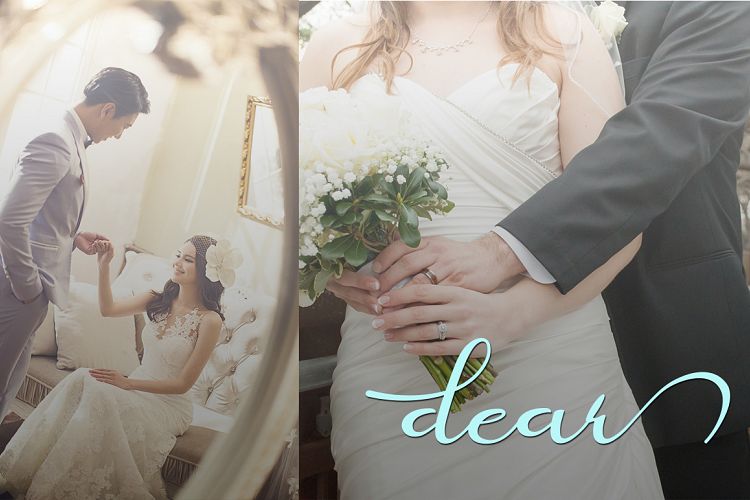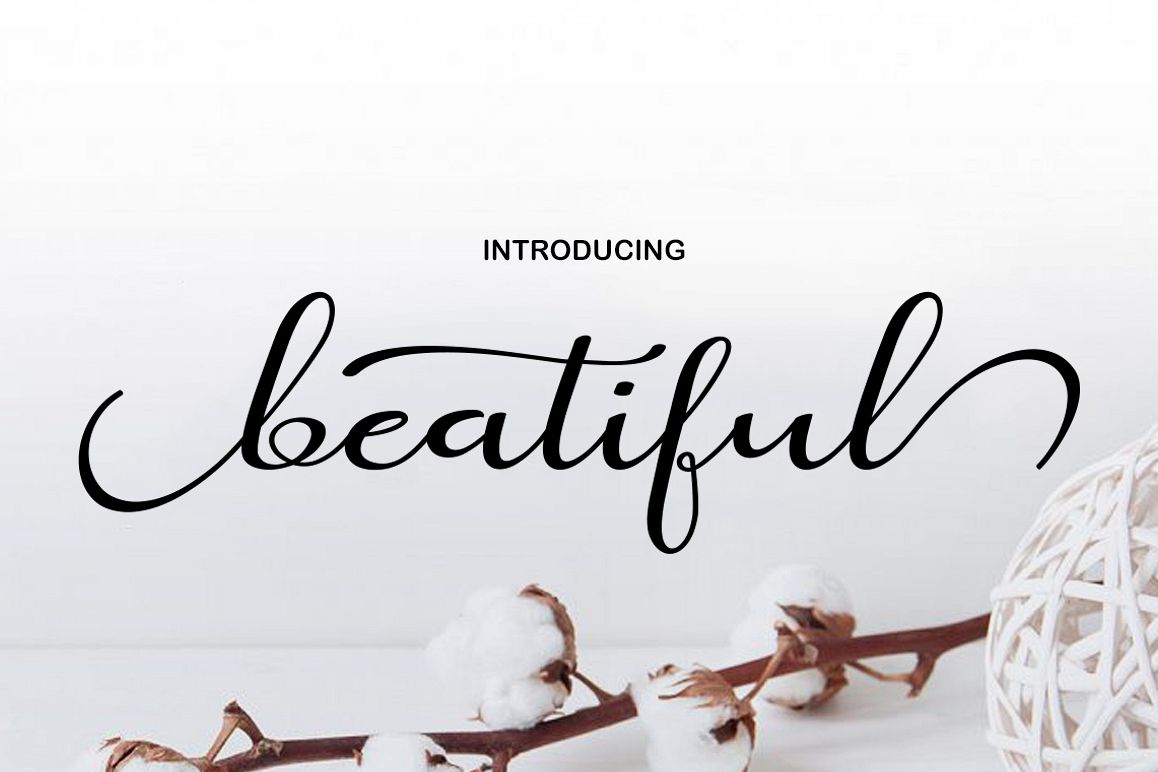
beatifulS cript Font
beatiful Script
beatiful Script New fresh & modern style with handmade calligraphy, decorative characters and dancing lineage! So wonderful are invitations like greeting cards, branding material, business cards, quotes, posters, and more !!
beatiful Script The comes with 336 glyphs. Alternate characters are divided into several Open Type features such as Swash, Stylistic Sets, Stylistic Alternate, Contextual Alternate. Open Type features are accessible by using Open Type savvy programs such as Adobe Illustrator, Adobe InDesign, Adobe Photoshop Corel Draw X versions, and Microsoft Word. And this font has code PUA unicode (font with special code). So that all alternative characters can be easily accessed by craftsmen or designers.
beatiful Script
Uppercase & lowercase International signature & symbol Punctuation Support & PUA number Unicode Style Style Alternative Style Style Range 1-6 Contextual Character Variations.